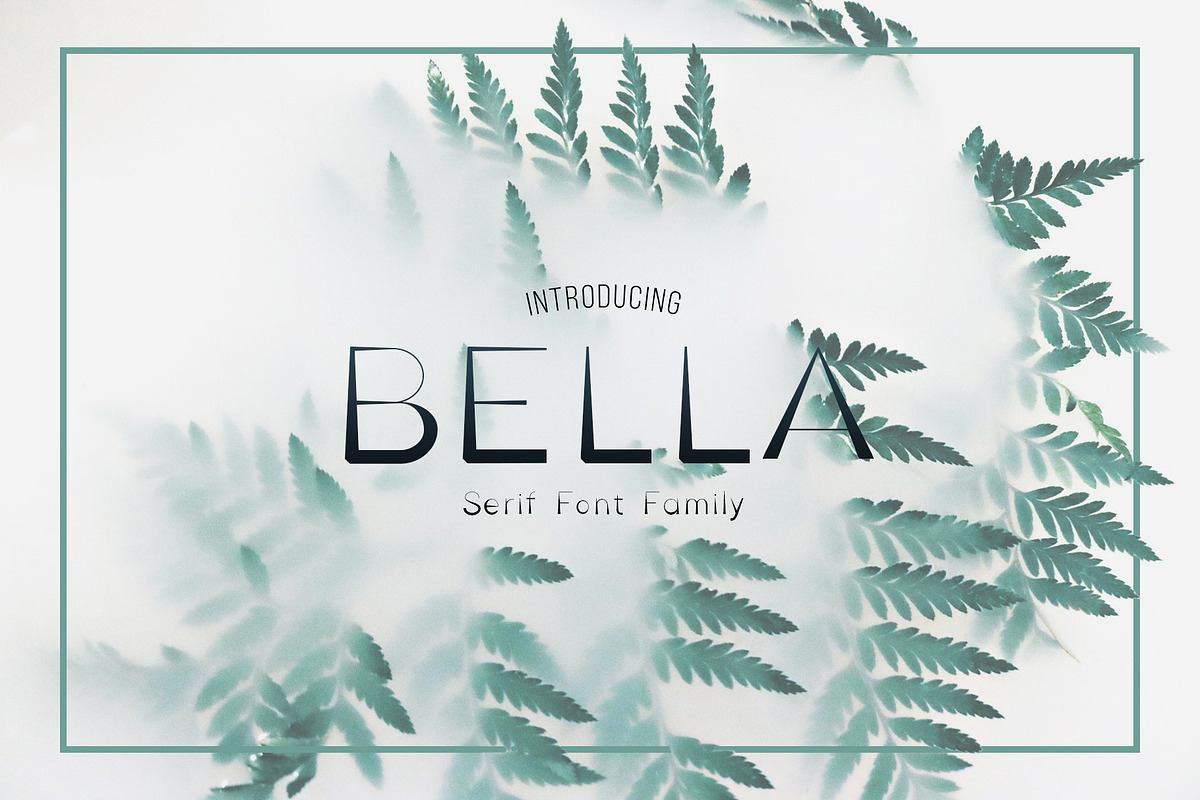
Bella Serif Font Family Free Download
Bella Serif Font Family Free Download is an elegant and versatile font family designed to bring sophistication and timeless charm to your designs. Featuring a range of weights from light to bold, Bella Serif is perfect for branding, editorial layouts, websites, logos, and high-end packaging.
Its classic serif structure and balanced proportions offer excellent readability and an air of refinement, making it ideal for both display and body text. Whether you're designing for luxury brands, creating a beautiful publication, or building a professional online presence, Bella Serif Font Family Free Download adds grace and clarity to your typography.